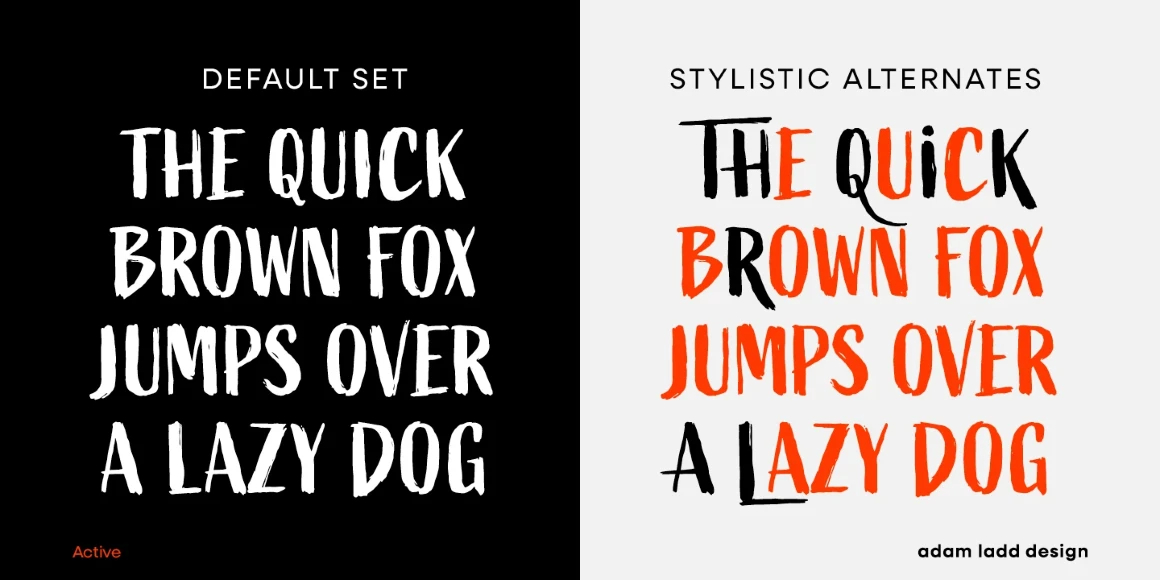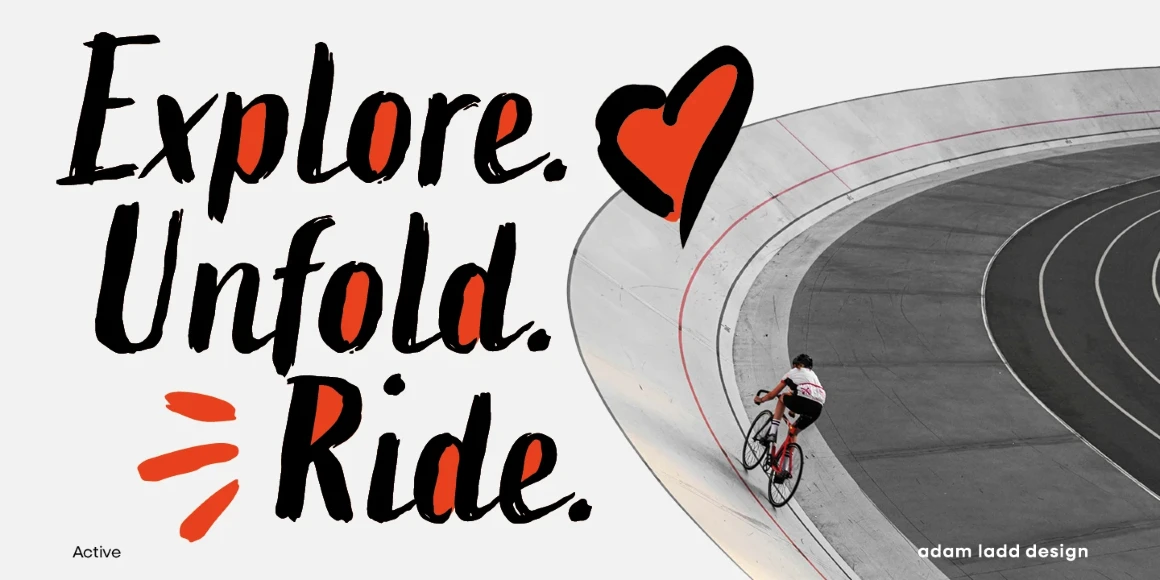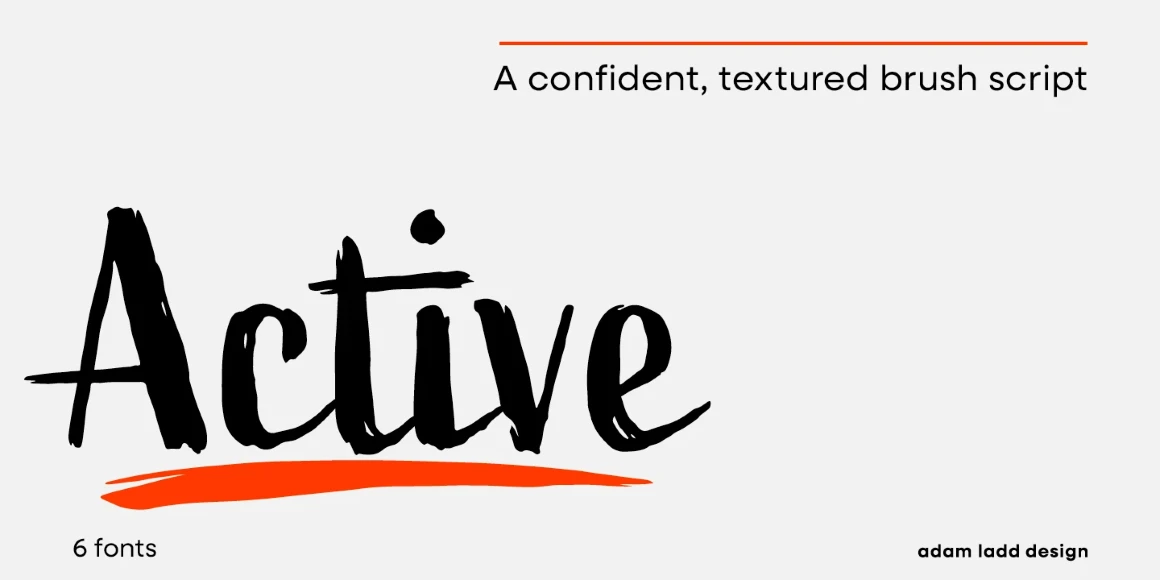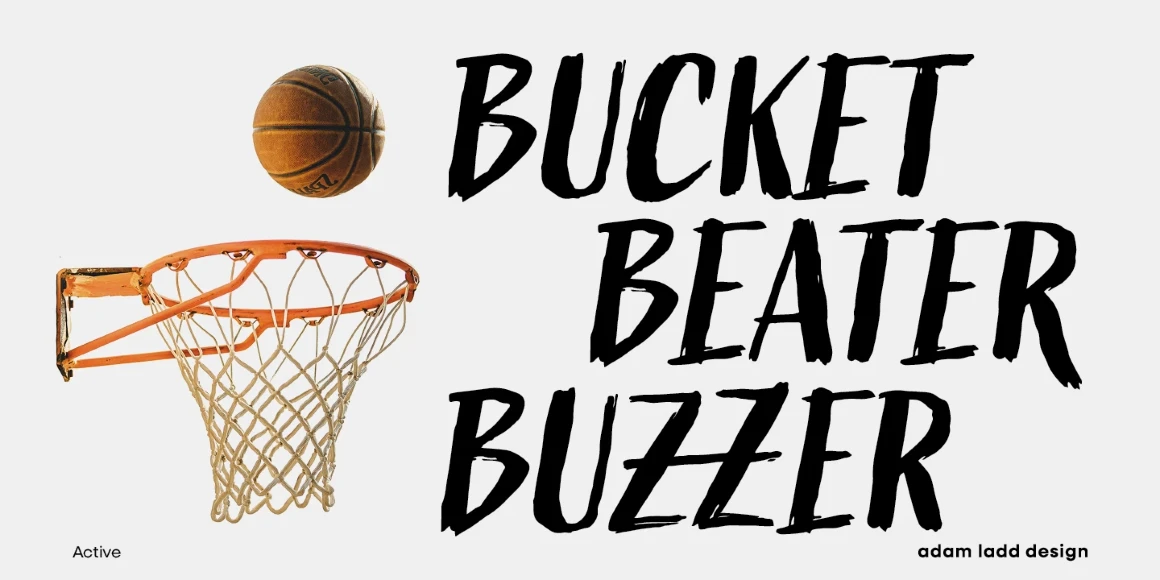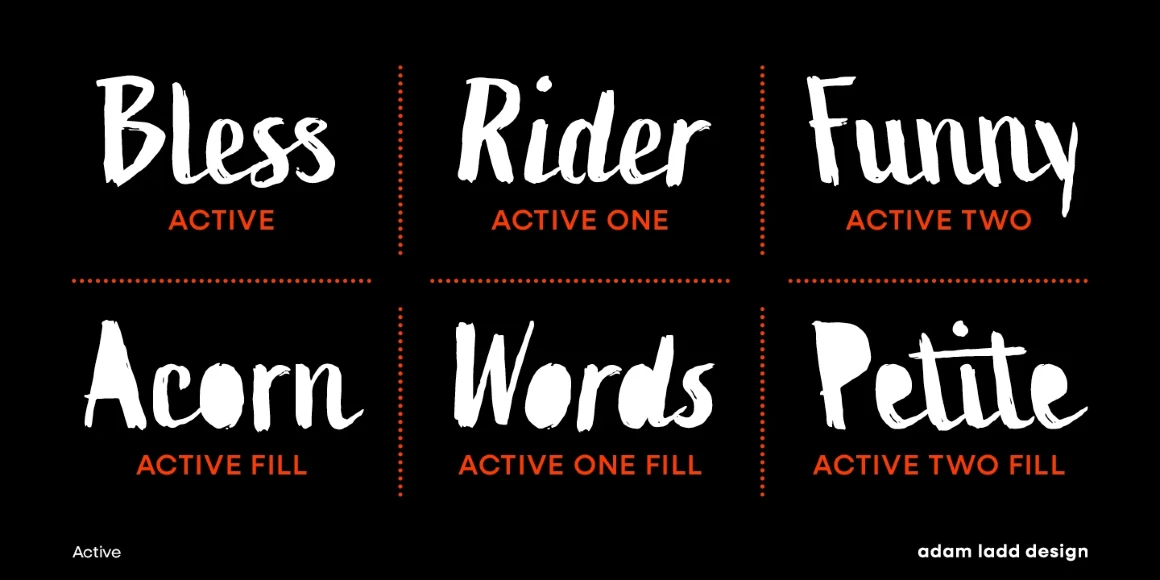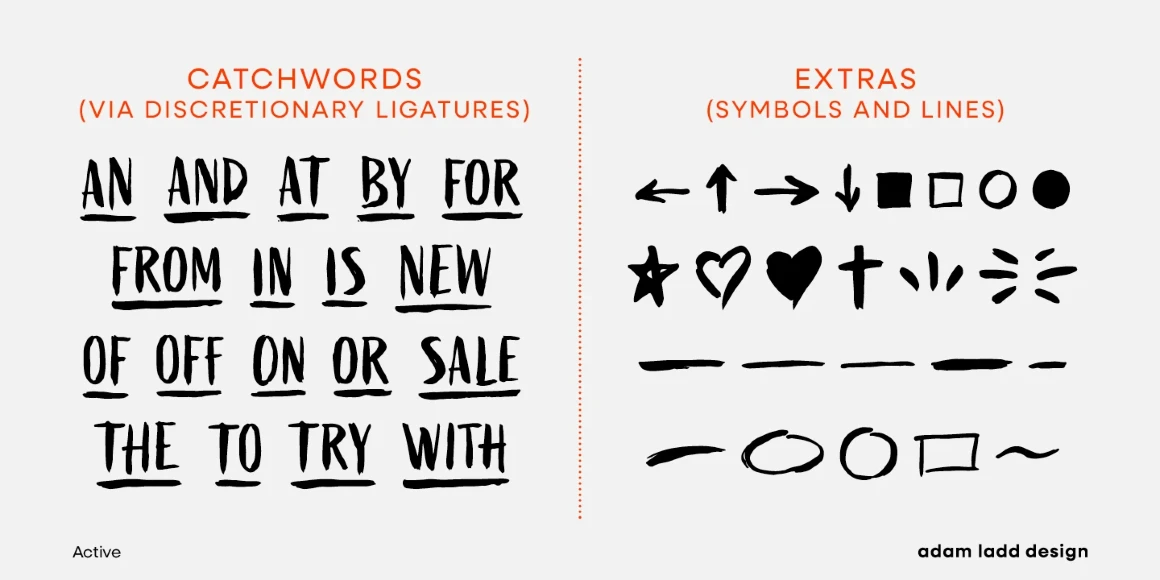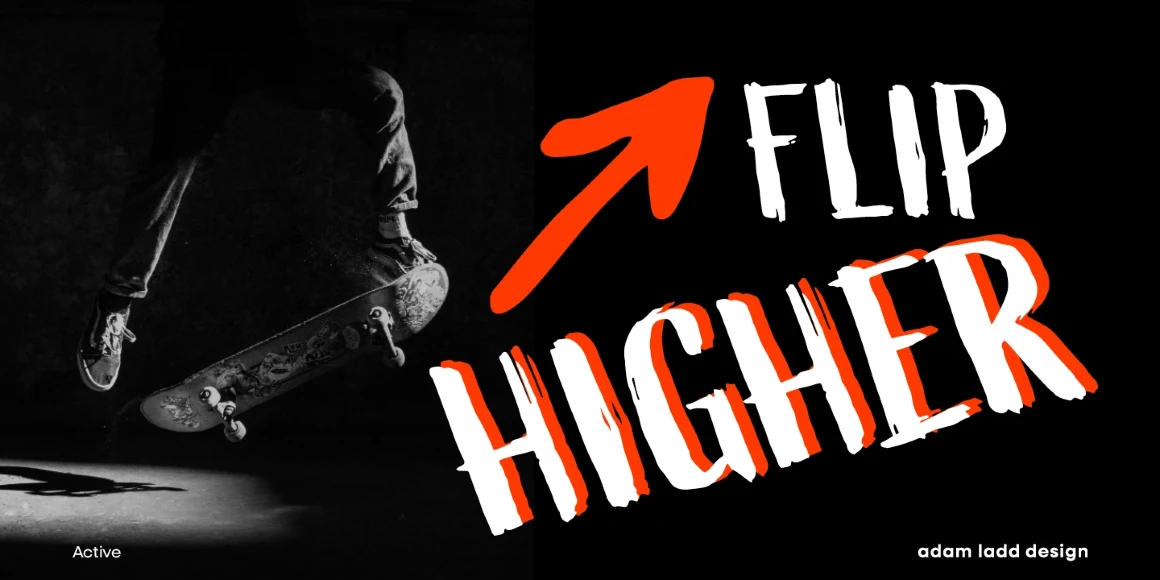
Active
By Adam Ladd
Active One Regular
Active One Regular Fill
Active Regular
Active Regular Fill
Active Two Regular
Active Two Regular Fill
Active is a set of six playful and personable inky brush script styles. With its hand-drawn, textured appearance it works great for packaging, branding, merchandise, and posters. Automatic ligatures replace repeating letters for a more authentically hand-lettered look, while stylistic alternates for some uppercase characters will add a little flair to your typography. Either in upright, slanted or fill, don’t miss the bonus OpenType accessible catchwords and ornaments in the glyphs palette.